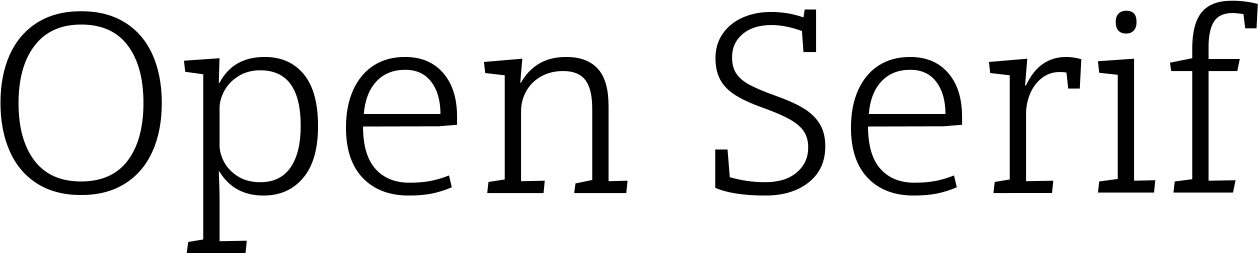
Open Serif Font
Open Serif font is a simple yet engaging serif font that you can utilize to create one ceremonial, trustworthy typography that looks professional. It offers regular characters, that will give your assignment an energetic feel with a perfect, classic design.
It includes all the letterforms that you will need for assembling your typography, such as mixed alphabets, numbers, and punctuations. You might want to carry out Open Serif font in places like magazines, fashion designs, invitation cards, tickets, and more.
Open Serif is the perfect text font to complement Open Sans (the most widely used typeface family on the internet!).